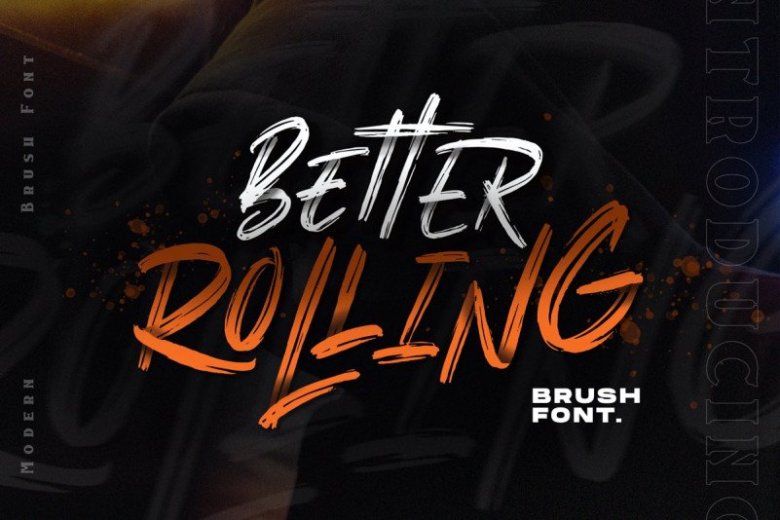
Better Rolling Brush Font Free
Better Rolling Font is a hand brushed typeface, with authentic dry brush imperfections, and a very bouncy baseline It has a perfectly paired complimentary brush font. It’s designed and shared by Mas Anis.
Better Rolling Brush is the modern hand brush font, a supercharged, street-wise brush font bursting with energy. With extra attention to quick strokes and sharp details. Each character was carefully brushed so the textured comes like real.
Suitable for any design needs : branding, logos, handwritten quotes, product packaging, merchandise, blog design, modern advertising design, invitation, Art Quote, Home decor, Book/Cover Title, Invitation, special events, birthday, custom mug, pillow, t-shirts, any brush lettering needs and more.